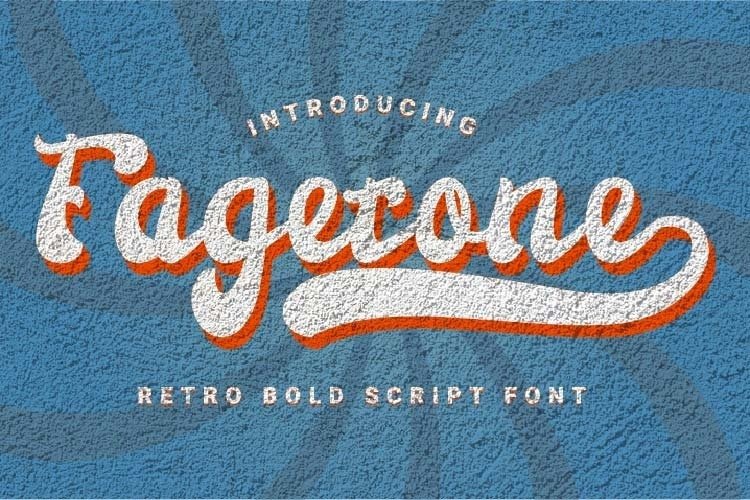
Fagetone Script Font Free
Fagetone Script Font is a vintage script font. The classic feel is really perfect for you who needs a typeface for retro / vintage theme. Dating back to the 60s 70s, this retro script font comes in bold bold and thin, perfect for your projects and supports multilingualism and other character additions. Can be applied to various print and digital media such as food packaging, clothing stores, accessories, clothing, creative goods, antique workshops, sports, entertainment and even logos.